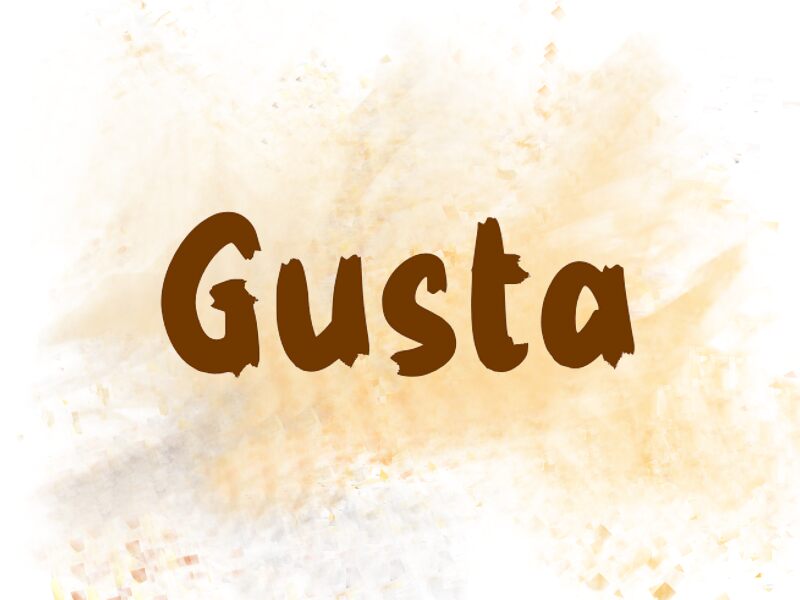
Gusta
Gusta, designed by wep, is a bold and dynamic brush-style font that exudes energy and creativity. Its distinctively thick strokes provide a commanding presence, making it perfect for eye-catching headlines and statement pieces. The playful yet assertive curves infuse a sense of movement and fluidity, while the bold weight ensures maximum visibility even from a distance.
Ideal for posters, logos, and social media graphics, Gusta's vibrant character can bring an expressive flair to any design project. Enhance your work with this striking font that blends audacity with artistic flair seamlessly.